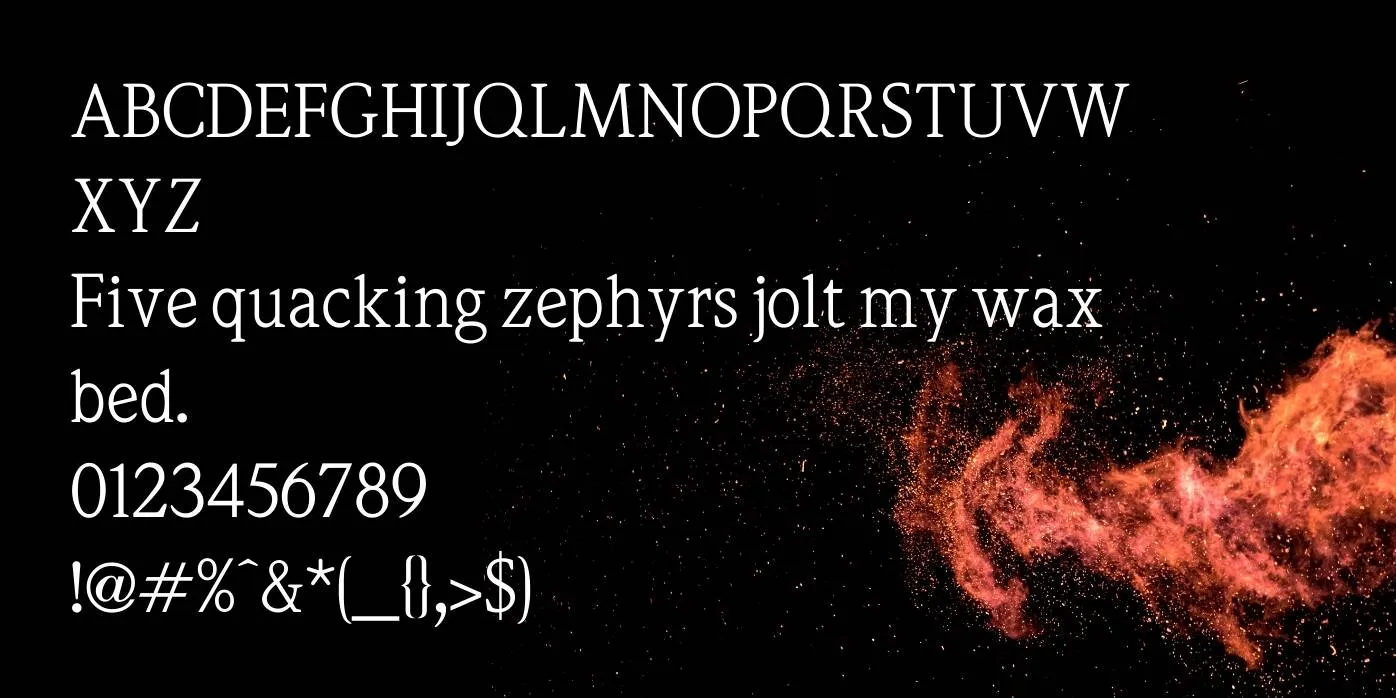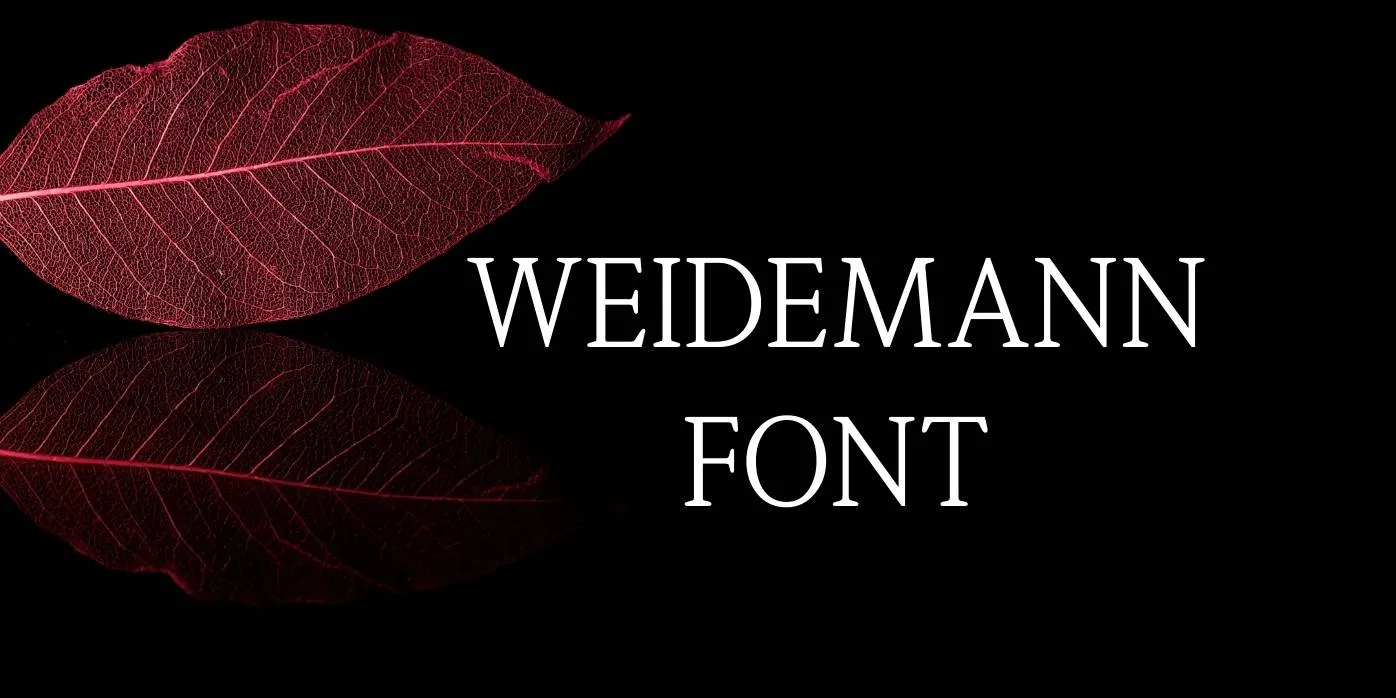
Weidemann Font
Weidemann font is a great lightweight typeface that belongs to the serif typeface family. It is designed by Kurt Weidemann. The font family has various styles and weights and has TTF features. The font family has immense weights that include Regular, Black, Bold, Book, Medium, Italic, TEE, and all the weights can be fit with italic style.
The typeface has professional glyphs like General punctuation, Uppercase and Lowercase letters, Numbers and Numerals, Special glyphs, little bit alternates. The font style is very common for small sizes of screen appearance. It can also be used for embedding app UI. You can utilize this typeface in your websites as table content.
It is a very great font for Printing press and newspapers as body text and highlights.